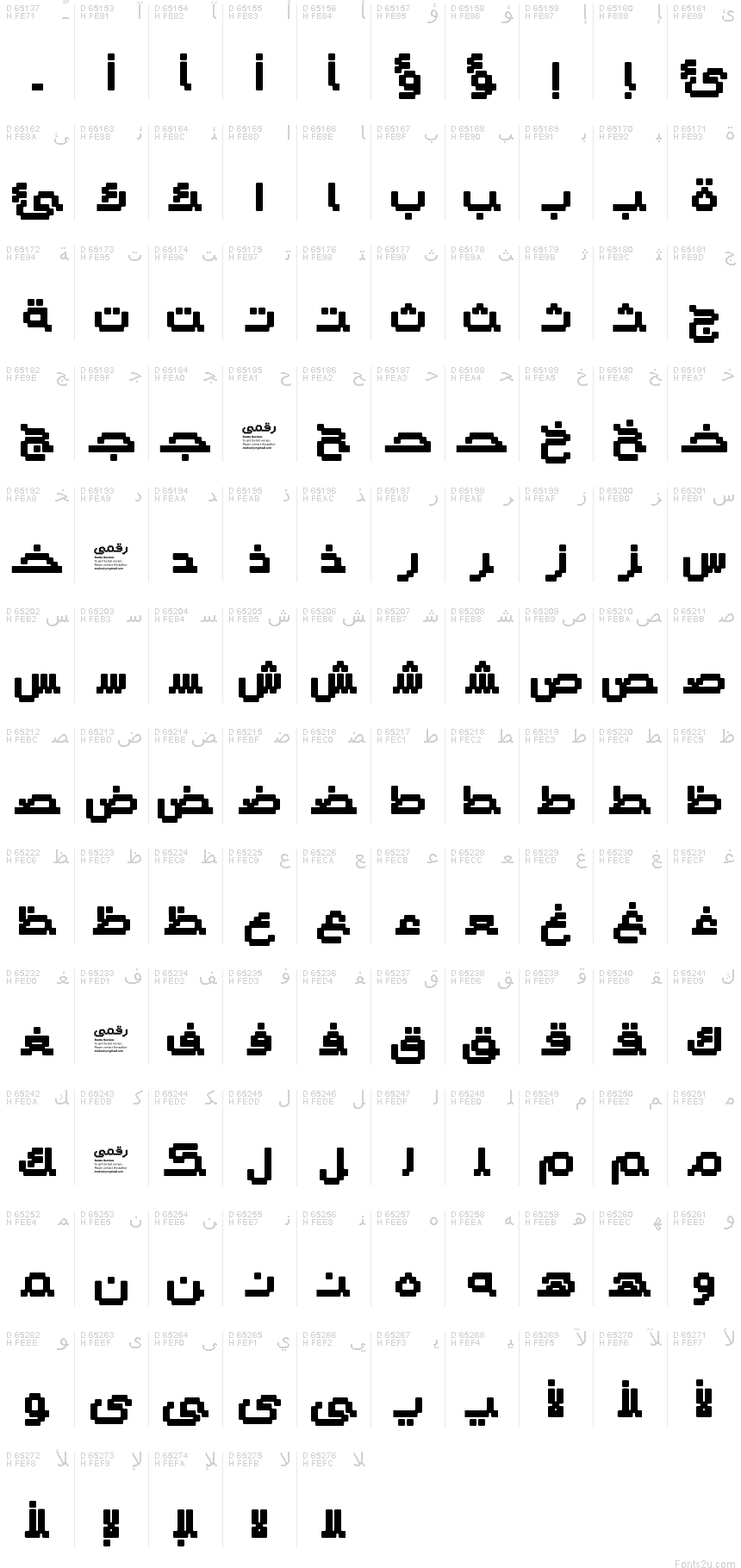
Raqami by Mostafa El Abasiry is a free Arabic display font with compact, connected forms. Its lettering has a low horizontal profile, firm strokes, and small angular changes that give the line a crisp contemporary character.
The graphic, sign-like silhouette complements geometric patterns and simple icons, making it useful for technology branding, digital graphics, and event posters. Packaging and music artwork can also use its dense construction as a prominent title element.